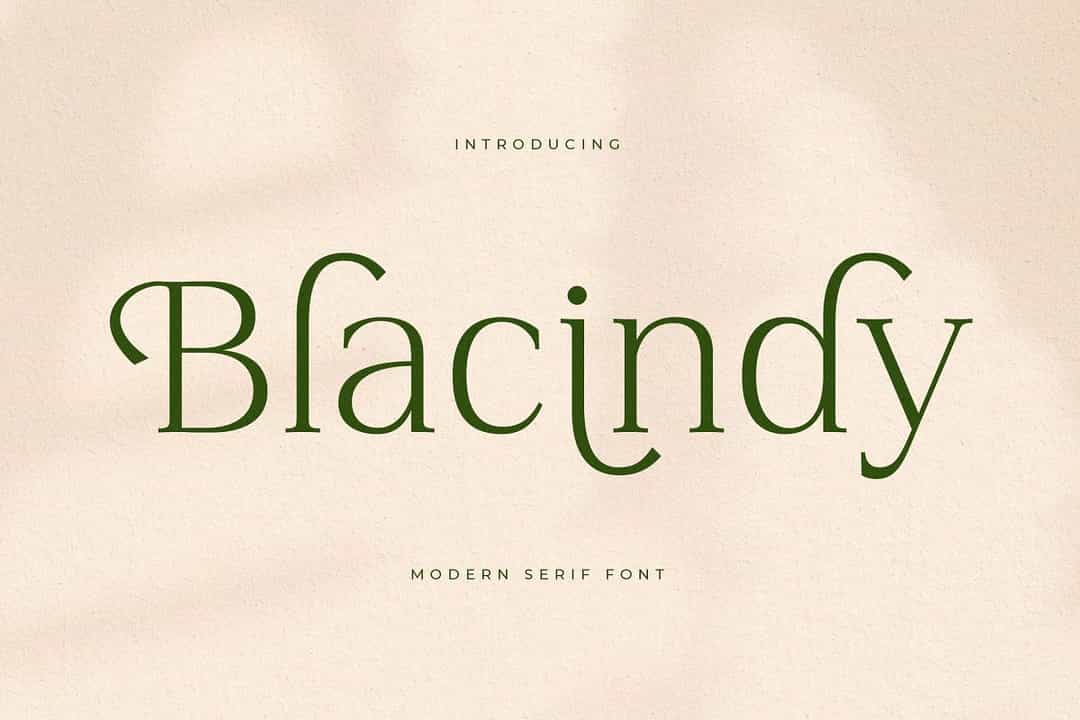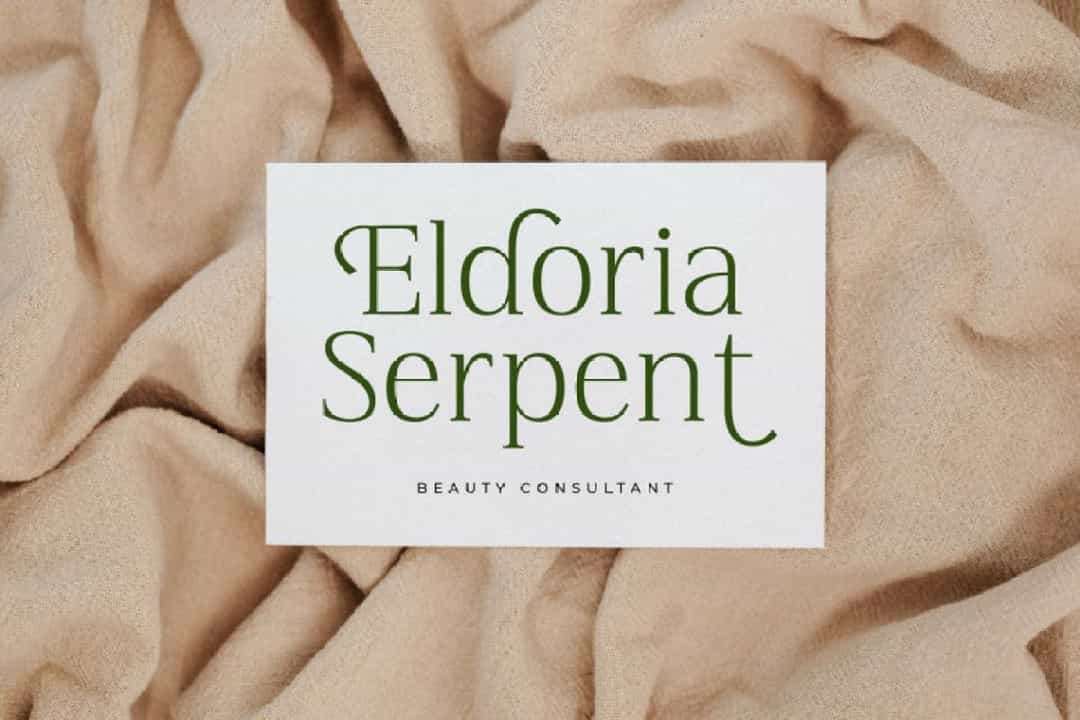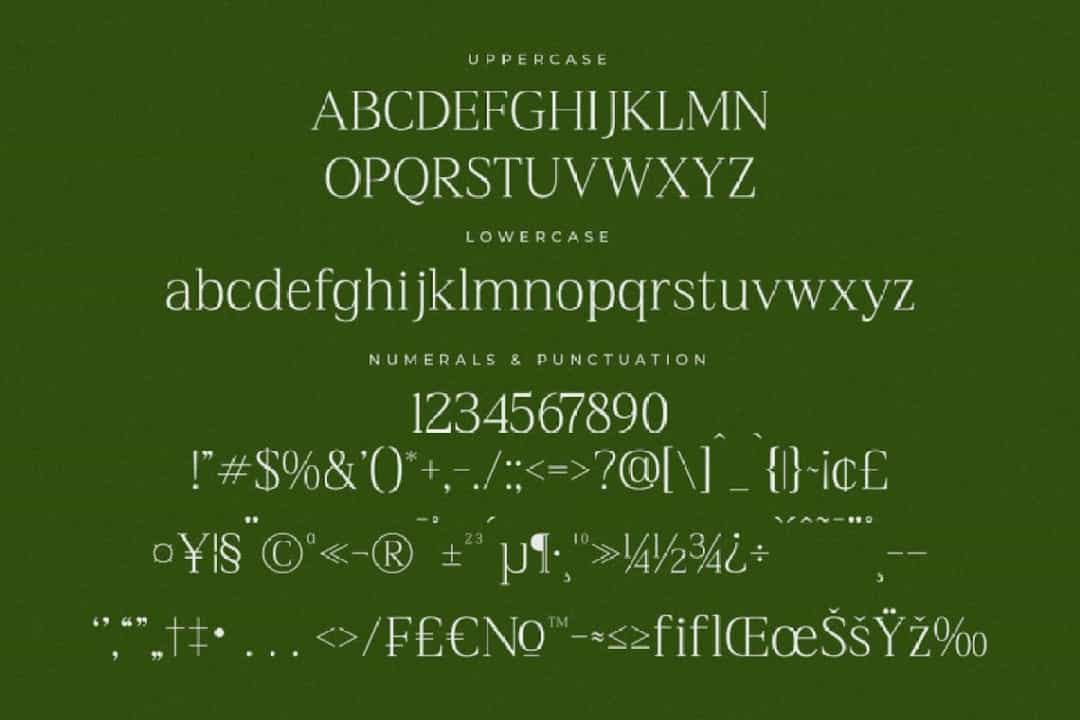
Blacindy from Letterena is an elegant modern Serif Font, perfect for use in projects including logos, branding design, homeware items packaging for products cups posters T-shirts shopping bags book covers greeting cards invitation cards labels photo watermark special events as well as many other luxurious projects requiring luxurious serif designs.